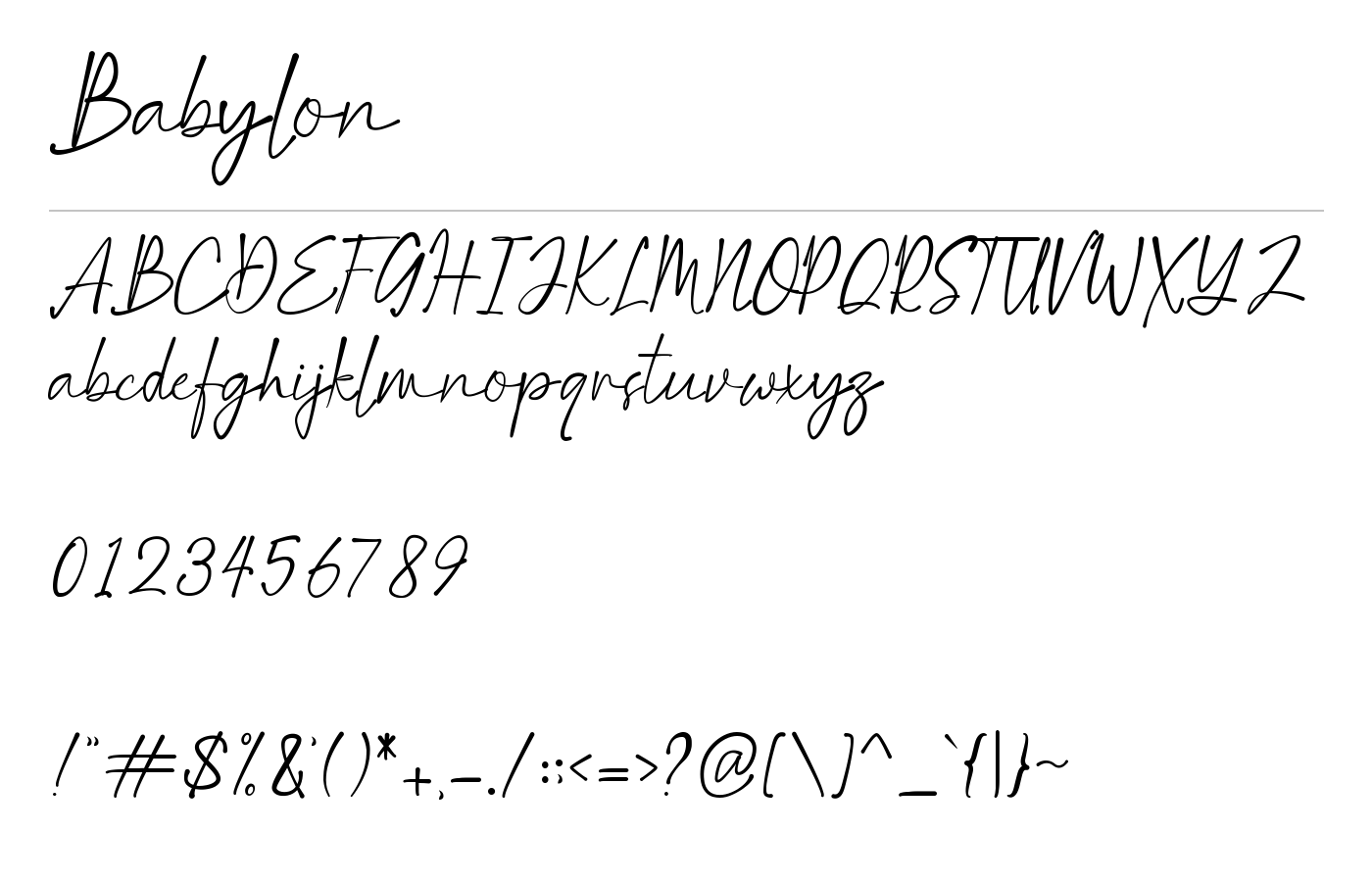
Babylon is a delicate and elegant handwritten script font that features smooth, flowing strokes with a light weight and a slightly condensed width. Its tall, graceful letterforms with a casual, calligraphic style make it perfect for branding, invitations, and any design that aims to convey a refined yet personal touch. This font works beautifully in creative projects where a modern, stylish, and approachable feel is desired.
Babylon Font
About Babylon Font